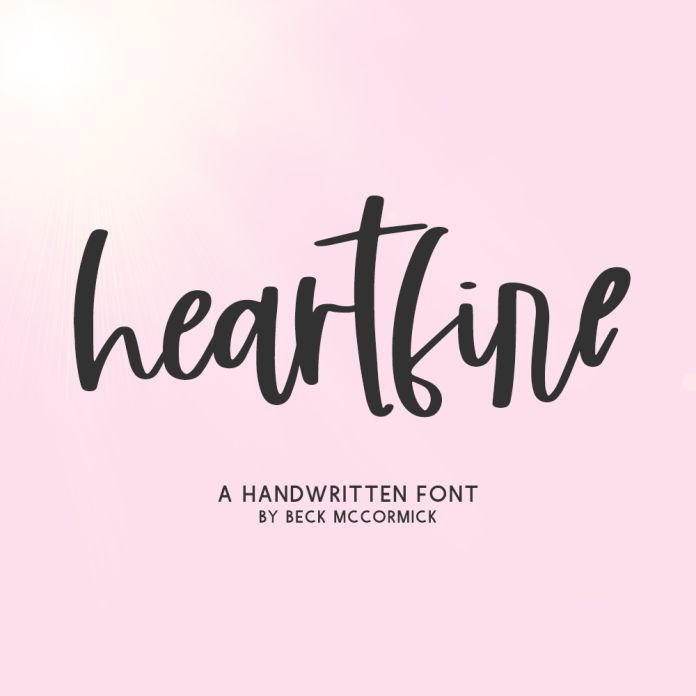
Introducing Heartfire, a modern calligraphy font with alternates.
Heartfire is best for:
- feminine, crafty projects with your Cricut or Silhouette machine, or your SVG design business